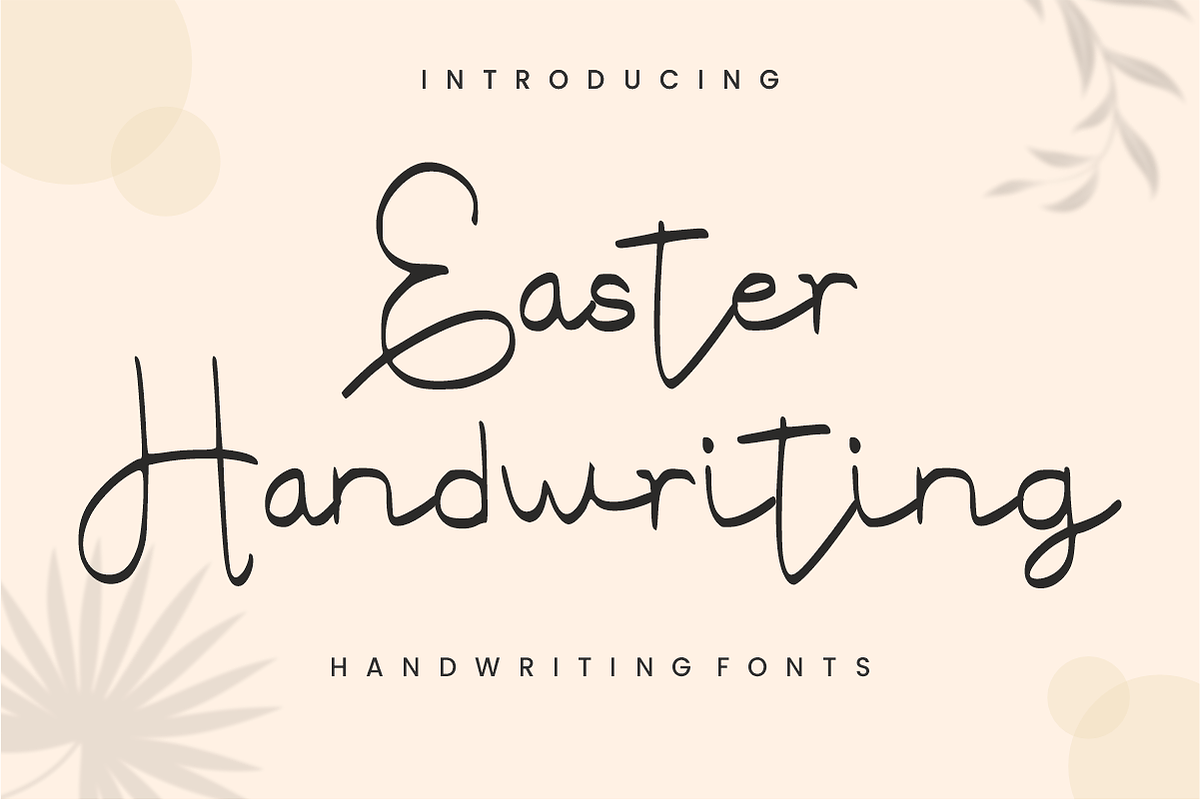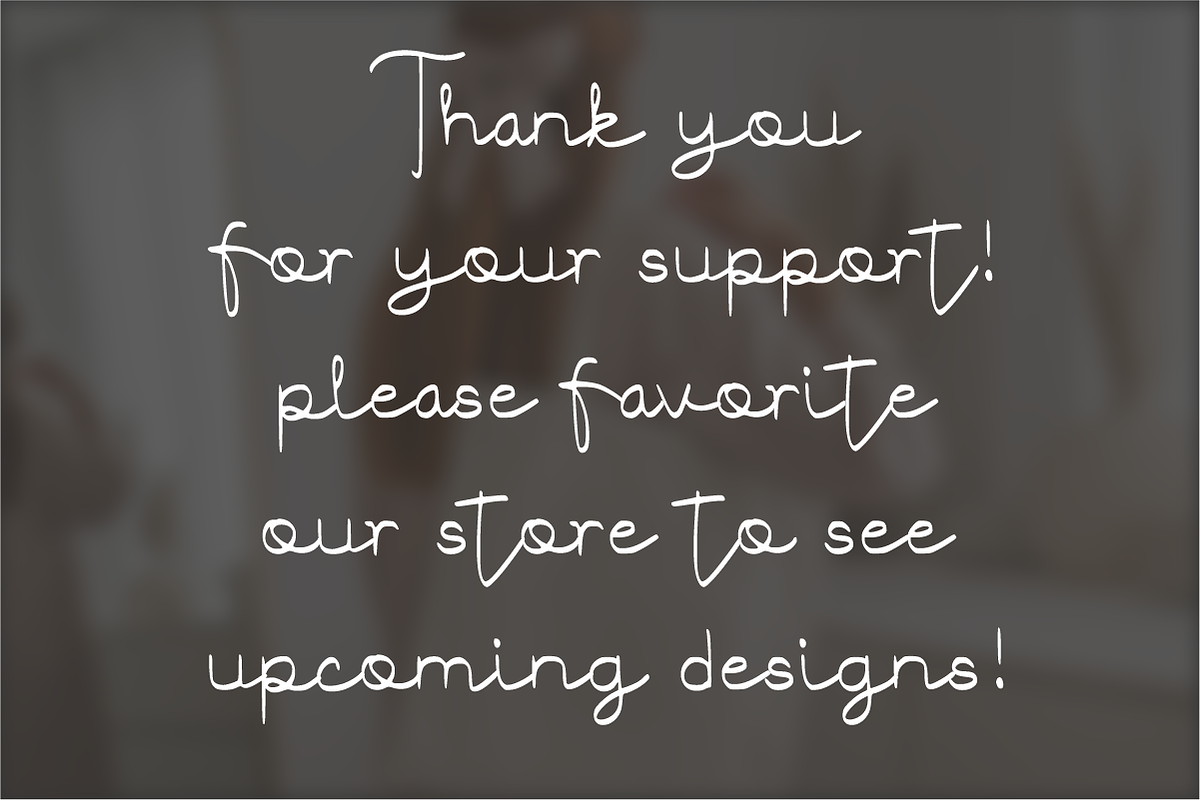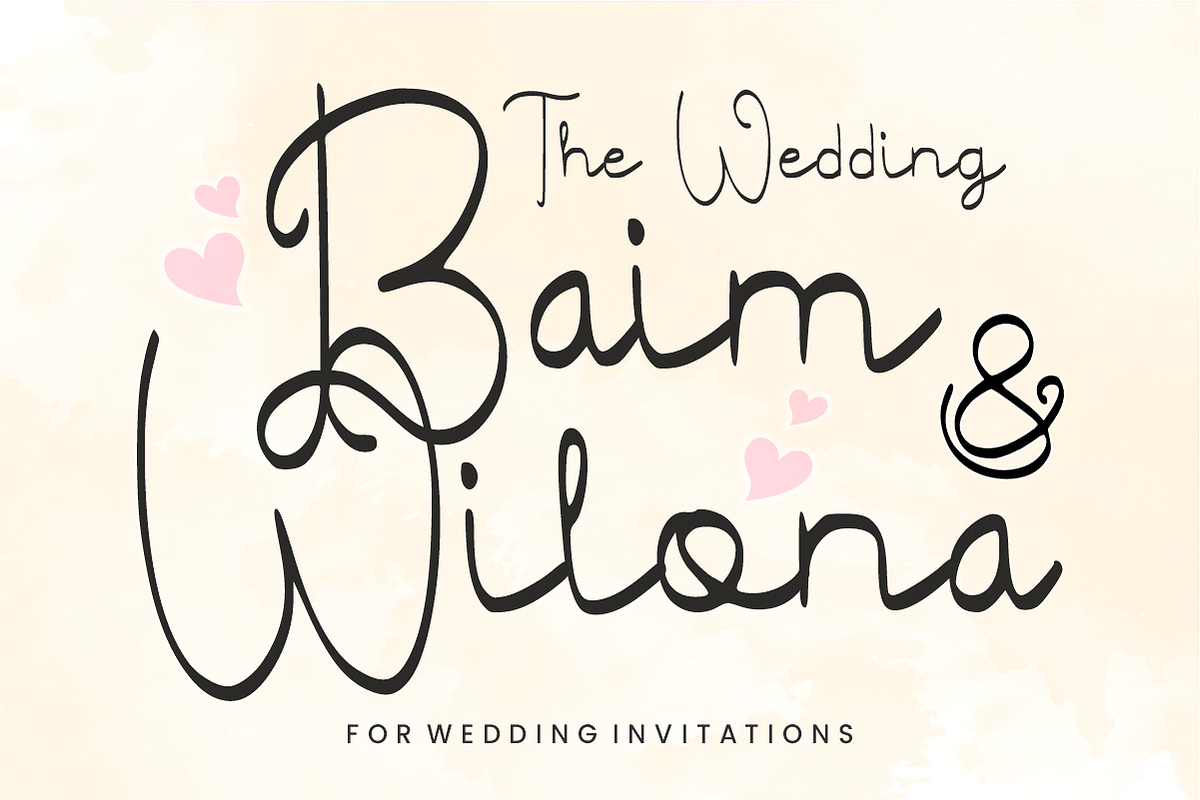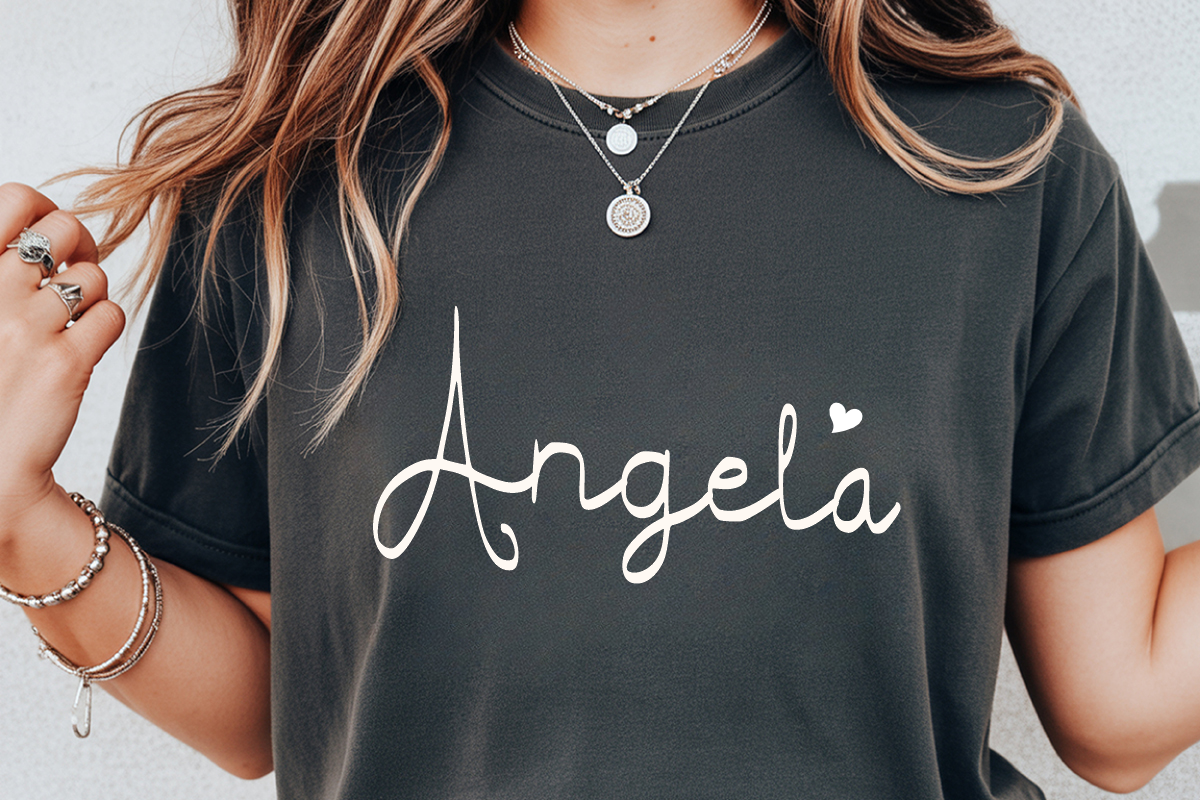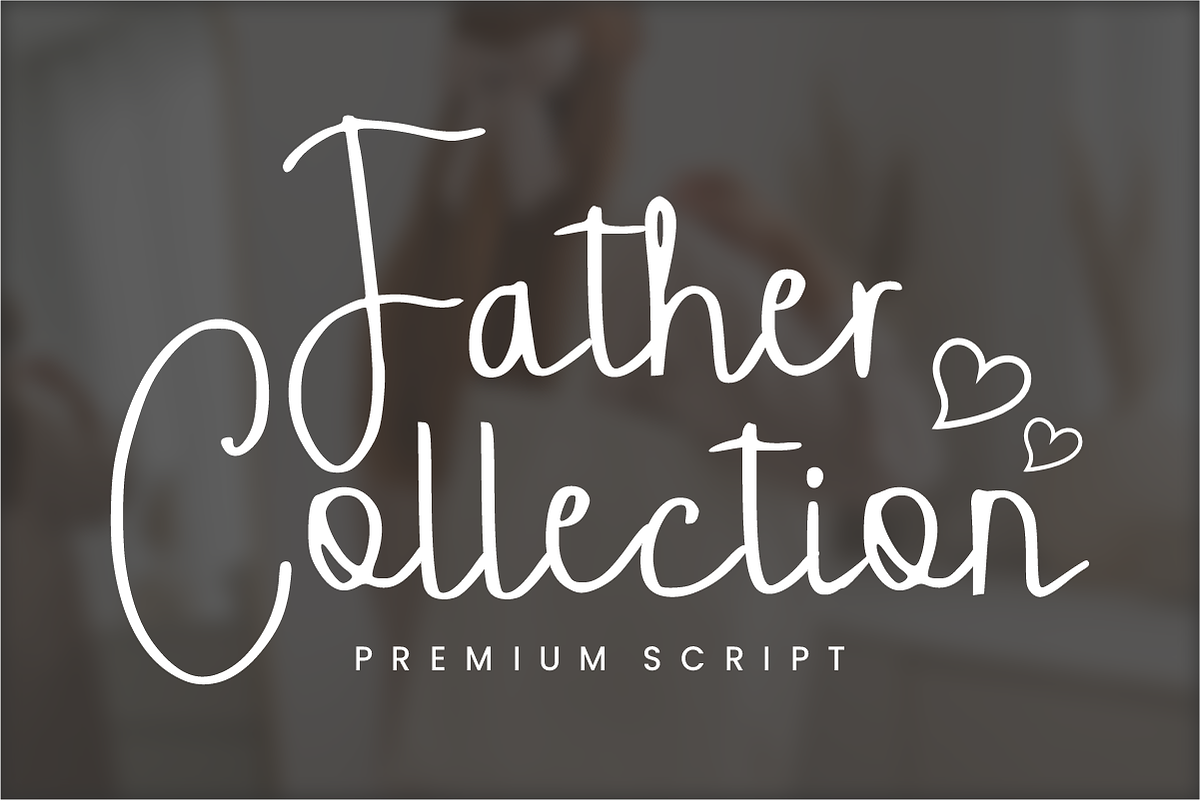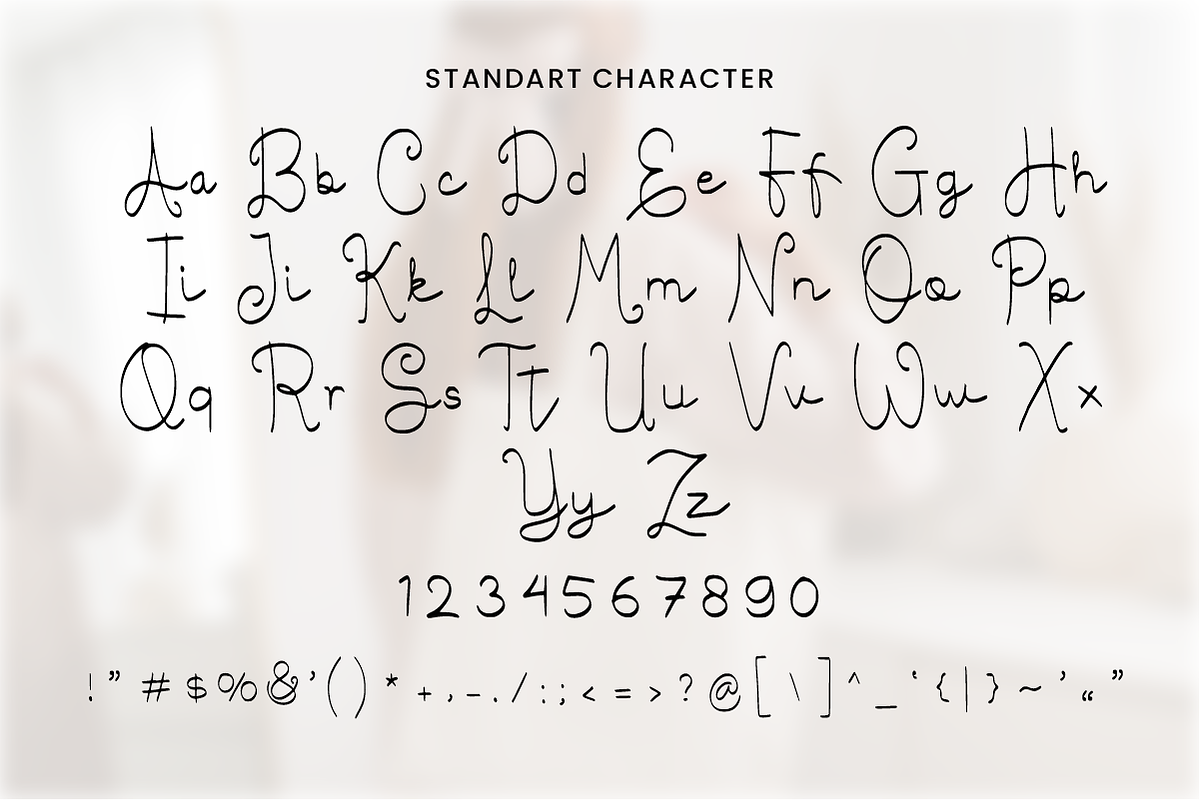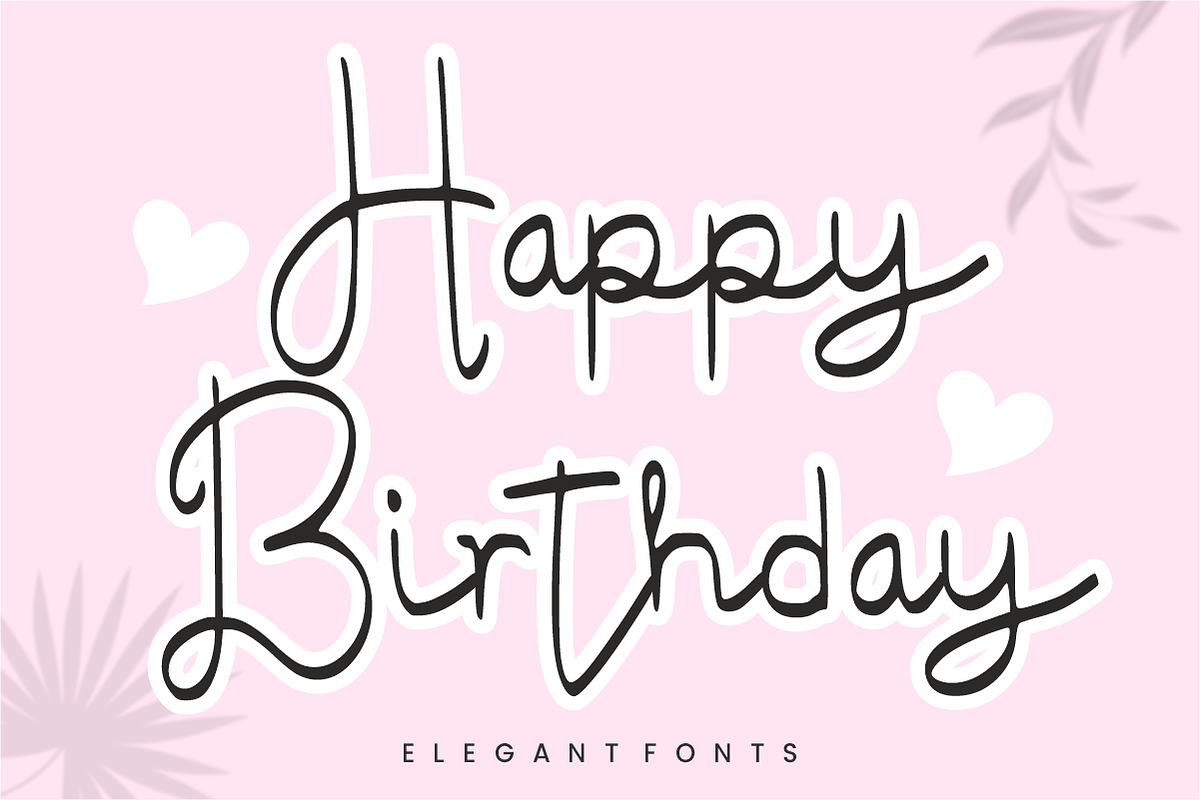
Easter Handwriting – Monoline Script
Easter Handwriting – Charming & Elegant Monoline Script ✨🌷 Infuse your designs with seasonal warmth and a personal, elegant touch!
Easter Handwriting is a light, flowing monoline script font that captures the airy essence of spring and renewal. With its delicate curves and natural pen-to-paper rhythm, this font offers a minimalist aesthetic that is both sophisticated and approachable. It is meticulously crafted to ensure your text feels authentic and hand-drawn while maintaining excellent professional legibility across all platforms.
🌟 Why Easter Handwriting is a Design Essential: Natural Fluidity: The seamless connections between letters create a genuine handwritten feel that adds life to digital designs.
Minimalist & Airy: Its clean monoline weight provides a modern look that doesn't overwhelm your layout, perfect for high-end branding.
Seasonal & Versatile: While ideal for Easter and Spring themes, its timeless elegance makes it suitable for year-round creative projects.
🎨 Perfect For: 🐣 Easter & Spring Projects: Seasonal greeting cards, gift tags, spring sale banners, and vouchers.
💍 Wedding & Event Stationery: Elegant invitations, RSVP cards, place settings, and menus.
🏷️ Boutique Branding: Chic logos, thank-you notes, and sophisticated packaging for beauty or lifestyle brands.
📱 Social Media & Content: Authentic-looking Instagram quotes, blog headers, and digital journaling.
📸 Photography Watermarks: A subtle and stylish way to sign your professional work.